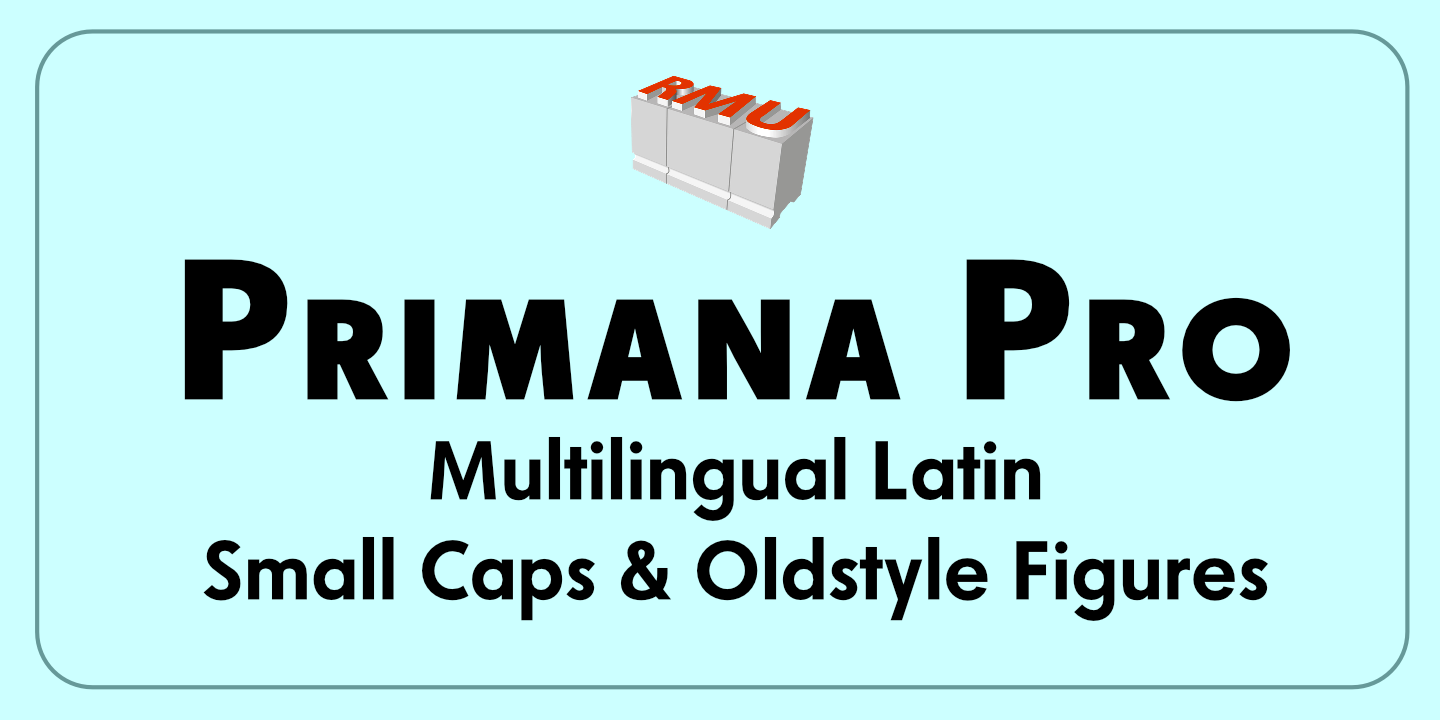
Primana Pro Font is ideal for corporate branding, professional presentations, annual reports, website headers, business cards, marketing materials, editorial design, magazine layouts, book covers, luxury brand identity, real estate brochures, financial documents, legal documentation, and premium packaging design. This sophisticated typeface excels in applications requiring clarity, professionalism, and contemporary elegance.
What makes Primana Pro Font so exciting is its perfect balance between modern sophistication and timeless readability. The font features carefully crafted letterforms with subtle geometric influences that create a clean, professional appearance without sacrificing personality. Its versatile design adapts seamlessly from large display sizes to small body text, maintaining exceptional legibility across all applications. The refined character spacing and optimized kerning ensure flawless typography in both digital and print environments.
The Primana Pro Font family includes multiple weights ranging from light to bold, along with matching italic variants for each weight. This comprehensive family provides designers with extensive typographic flexibility, allowing for sophisticated hierarchical structures and dynamic text combinations that maintain visual consistency throughout complex design projects.
Whether you're developing corporate identity systems, designing editorial layouts, or creating premium marketing materials, Primana Pro Font Free Download offers the perfect combination of contemporary style and professional reliability. This exceptional typeface delivers outstanding performance across diverse applications, making it an invaluable asset for designers seeking versatile, high-quality typography that enhances brand credibility and visual communication effectiveness.